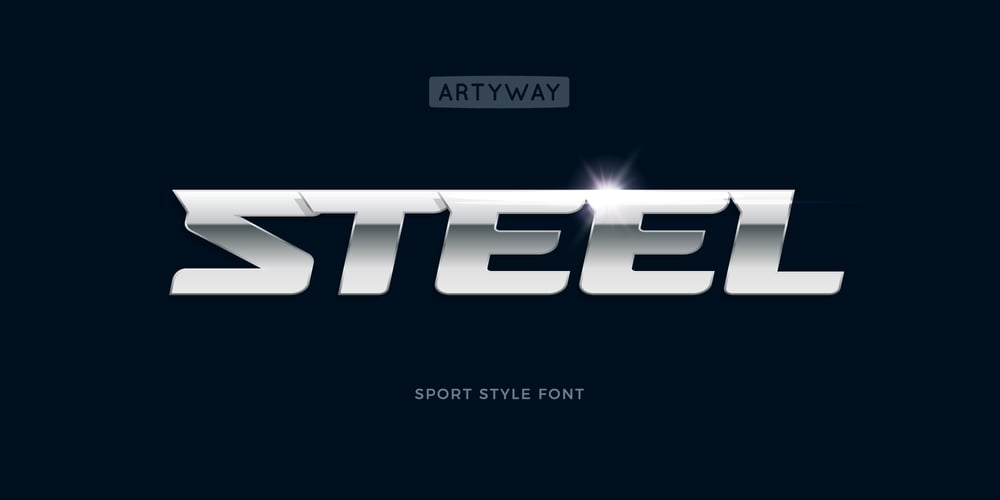
Steel Race
Steel Race font
Steel Race Font Family was designed by Yehor Lisnyi and published by Artyway. Steel Race contains 1 styles and family package options. Powerful design of the Steel Race font will speed up your pulse!Wide with sharp serifs and a verified angle of inclination radiate confidence and respect. The “Steel” will save your time and nerves when creating the dynamic compositions, like sports events and promotions or logos.Make sure yourself.